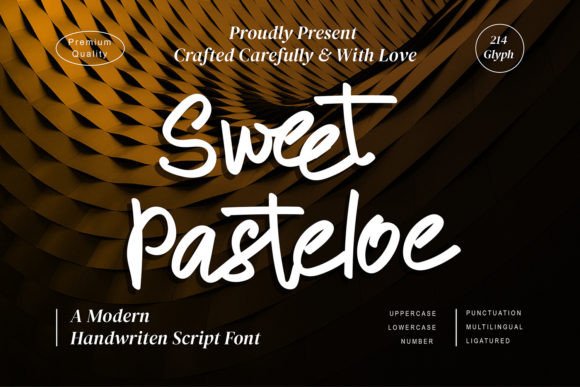
Journey into a world of captivating elegance with Sweet Pasteloe, a font crafted to infuse your designs with a touch of heartfelt charm. Inspired by the beauty of life's adventures, this flowing masterpiece dances across the page with its delicate strokes and graceful curves. Whether you're crafting wedding invitations, designing heartfelt cards, or seeking a font to give your designs a personalized touch, Sweet Pasteloe is your perfect companion.
Unleash your creativity and let your imagination soar as you explore the endless possibilities this font presents. Its versatile nature allows it to seamlessly adapt to various designs, from whimsical illustrations to heartfelt quotes. Embrace the joy of creating with Sweet Pasteloe and watch as your designs blossom into stunning works of art.
Each letter is meticulously crafted to evoke a sense of genuine joy, like a melody that dances across your screen. Witness the beauty of words as they transform into enchanting masterpieces, capturing the essence of your message with every stroke.
With Sweet Pasteloe, your designs will radiate a unique charm and authenticity. Its elegant lines and playful personality add a touch of magic to any project, leaving a lasting impression on your audience. Dive into the world of Sweet Pasteloe and discover the endless creative possibilities that await you. Your journey starts here, where passion meets creativity, and beauty knows no bounds.